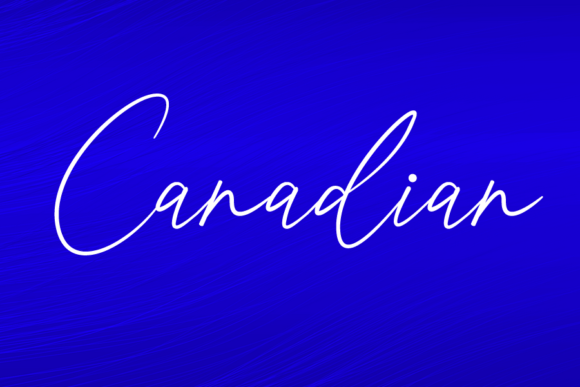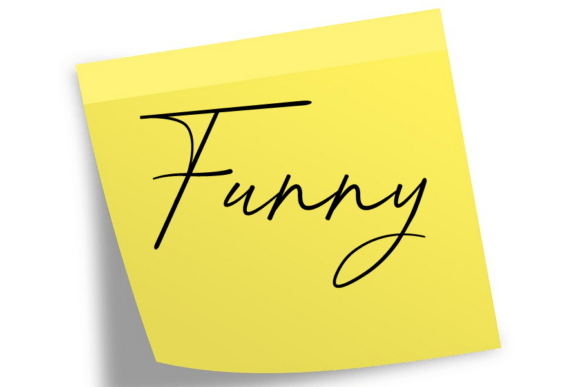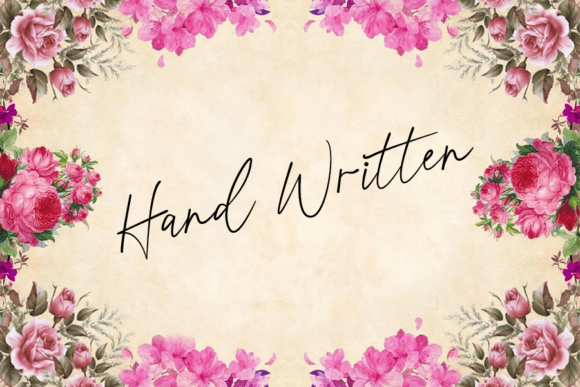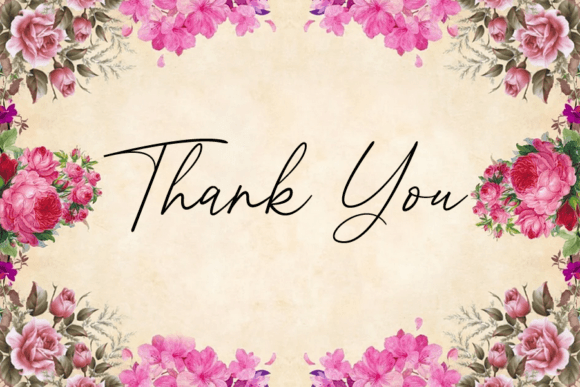
Unique Font
About Unique Font
“Unique” is a lovely and sweet handwritten font that adds a touch of charm to your design ideas. With its gentle and romantic style, this font has the ability to make your projects look gorgeous and evoke a sense of joy and romance.
The appeal of “Unique” lies in its ability to provide a warm and delightful aesthetic. Each character is thoughtfully crafted to exude a gentle and sweet vibe, making it an ideal choice for projects where you want to create a visually appealing and heartwarming impression. Whether you’re working on digital or print materials, “Unique” offers a versatile and stylish script that adds a touch of loveliness to your content.
For various design applications, including wedding invitations, greeting cards, logos, and more, “Unique” provides the creative freedom to infuse your projects with a sense of romance and joy. Its sweet handwritten style can enhance the visual appeal of your designs and effectively convey your message to your audience.
In summary, “Unique” is a valuable font that brings charm and sweetness to your creative work. Its gentle and romantic script style makes it suitable for a variety of applications, and its ability to evoke joy and romance sets it apart. With “Unique” in your font collection, your design projects will exude a sense of warmth and loveliness that leaves a lasting impression.